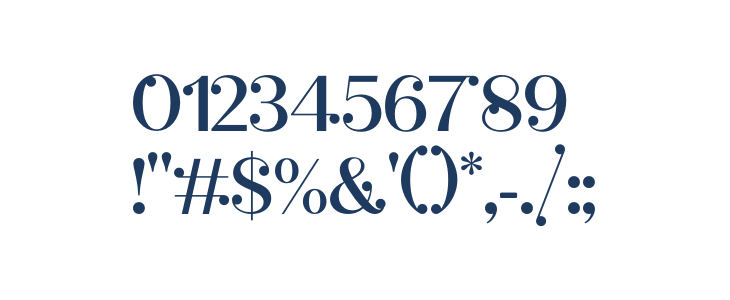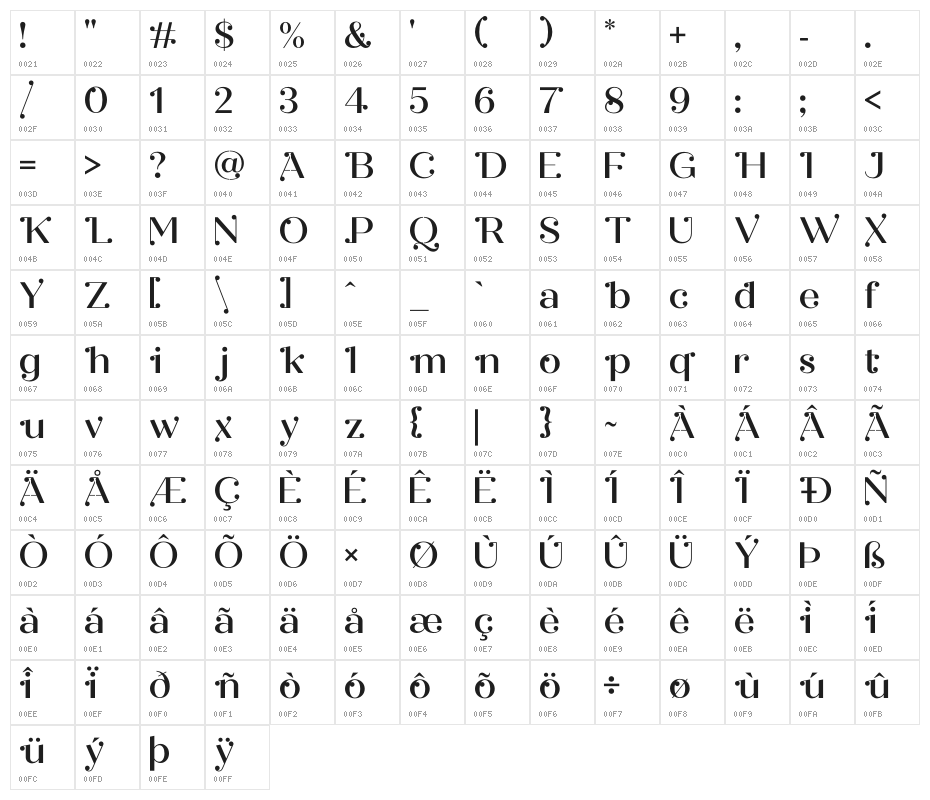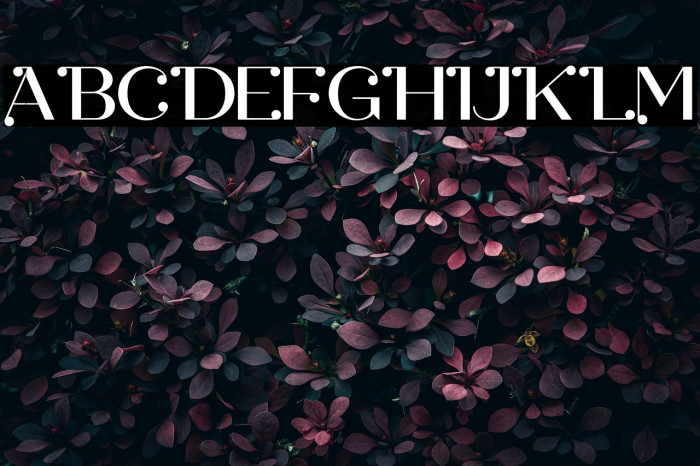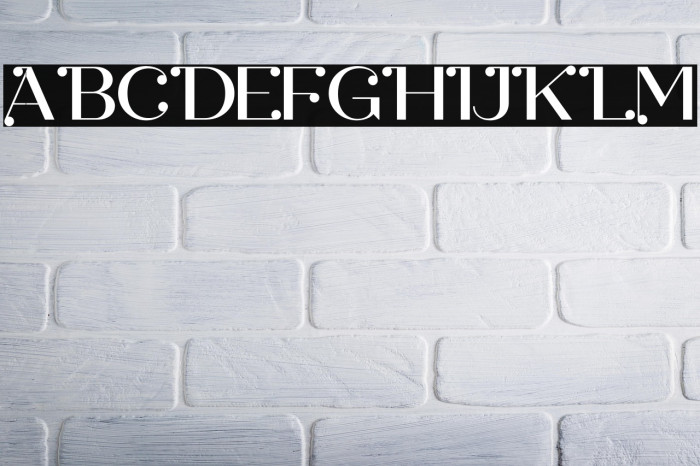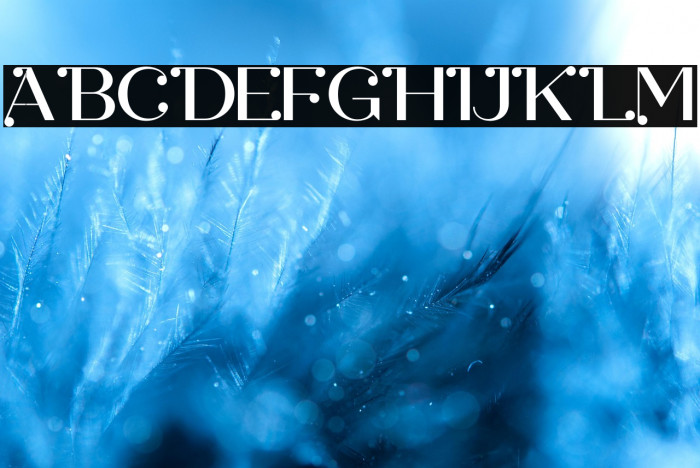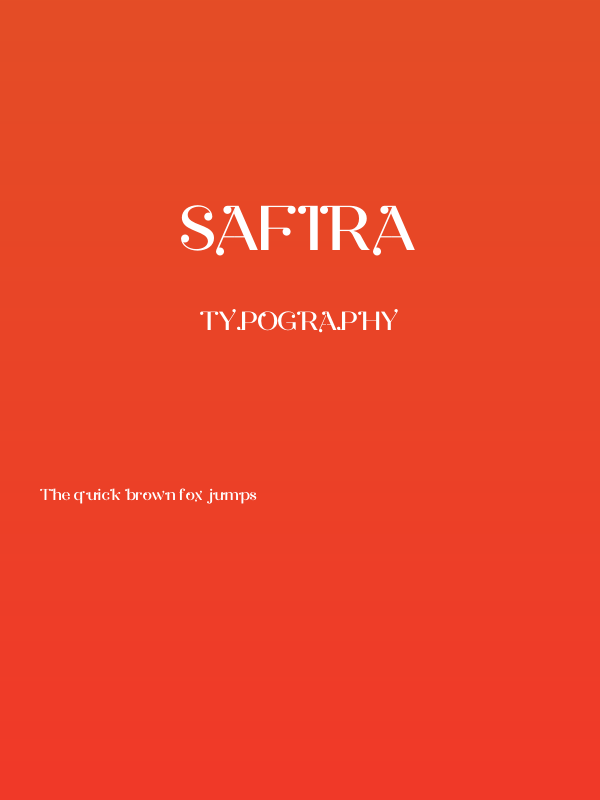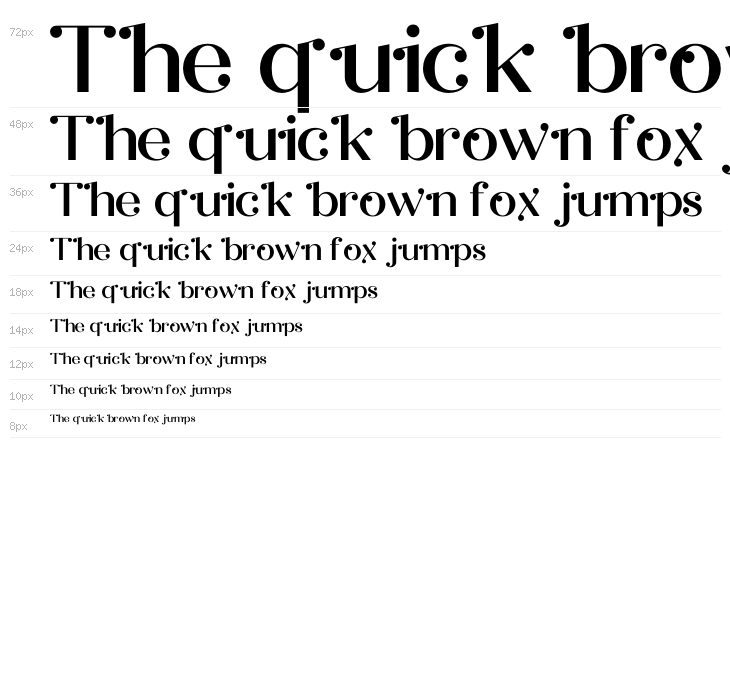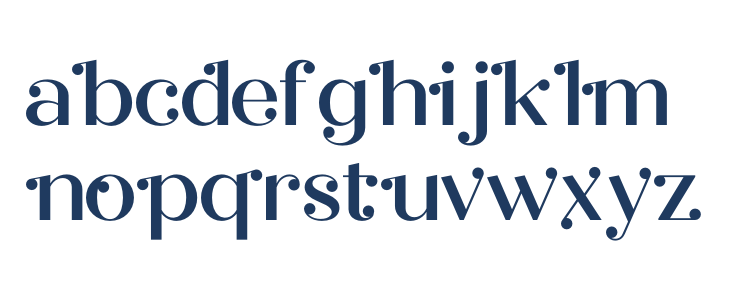
Safira Font
Safira Description
This font features a unique and decorative style with a modern twist. The characters are adorned with circular embellishments at the ends of strokes, giving it a playful yet sophisticated appearance. The uppercase letters are bold and striking, while the lowercase letters maintain a consistent flow with a slightly softer touch. Numbers and special characters are designed with the same decorative elements, ensuring uniformity across the font. The overall design is eye-catching and ideal for creative projects that require a distinctive and artistic flair.
| Proposed Projects | Ideal for branding, packaging, posters, and invitations where a unique and artistic touch is desired. |